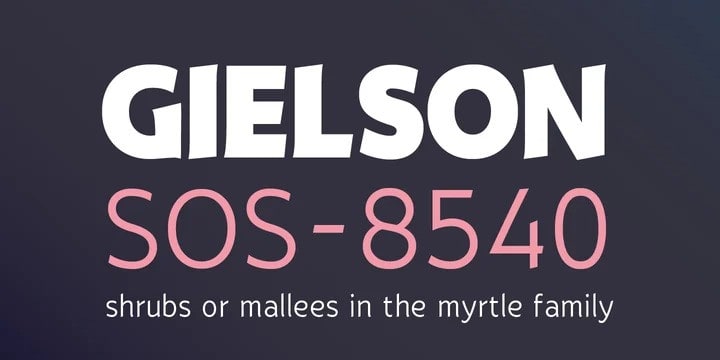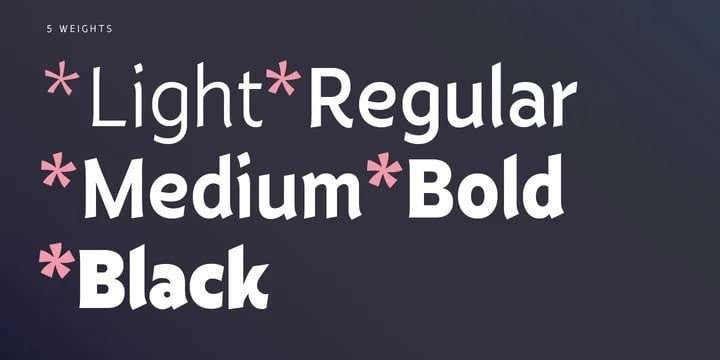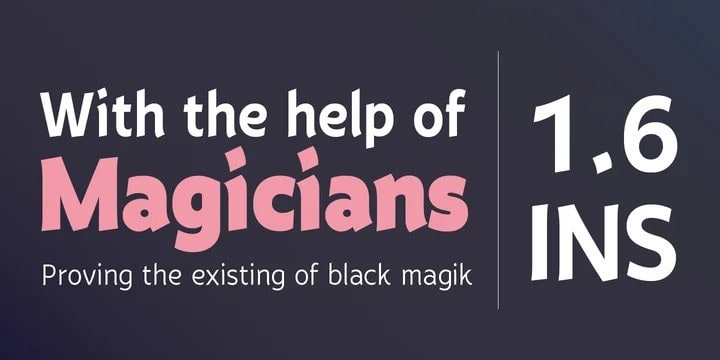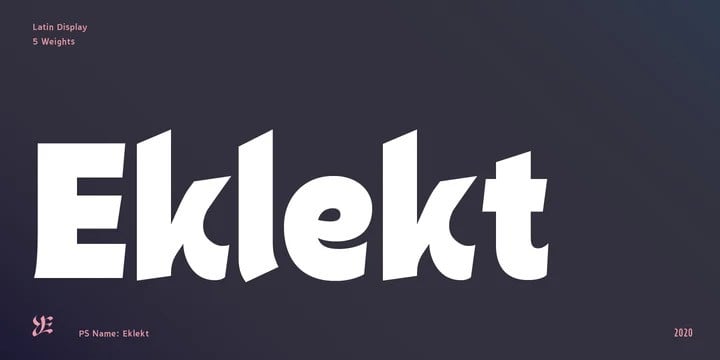
Eklekt Sans Serif Font
Eklekt Sans Serif Font is a modern take on retro font styles. It’s designed and shared by Yinon Ezra. The Magical look of Eklekt is not made by chance, it is created with the combination of graphic-sharp shapes and a flow curves that looks a bit like it is written by hand. Can be used for logos, headlines and short text.